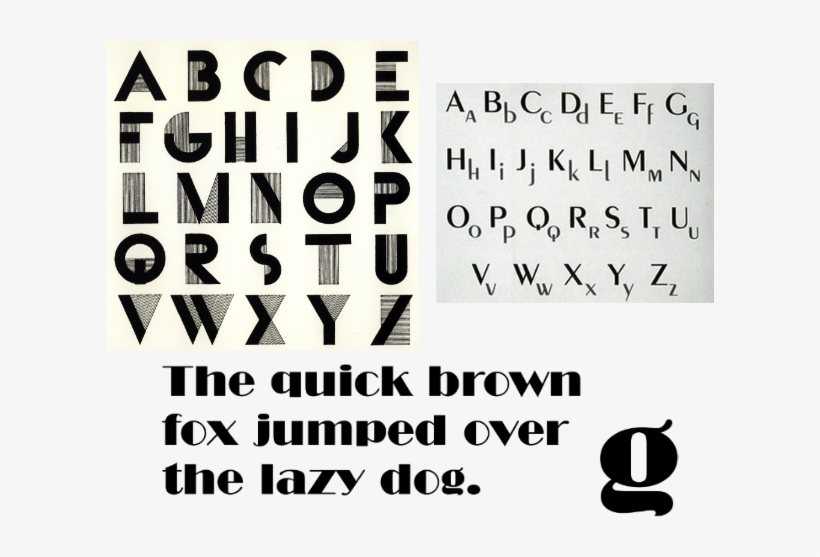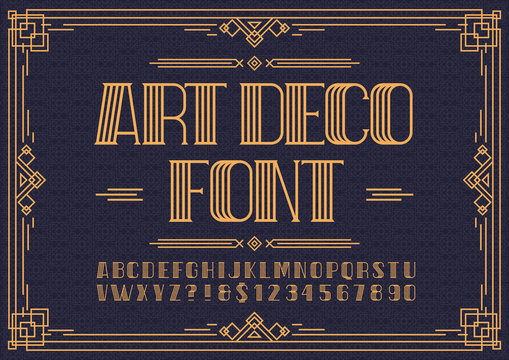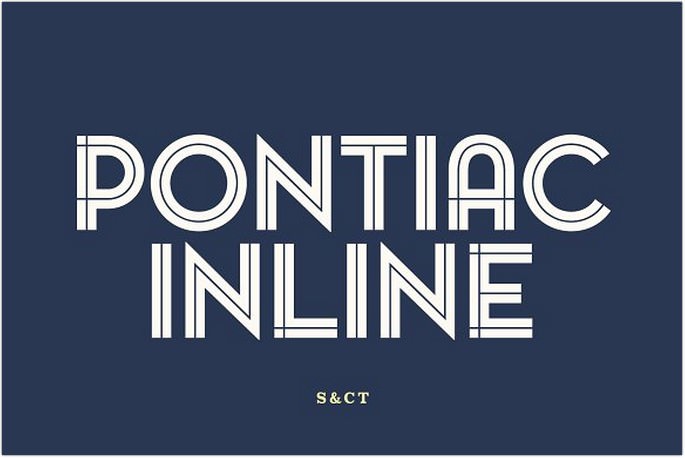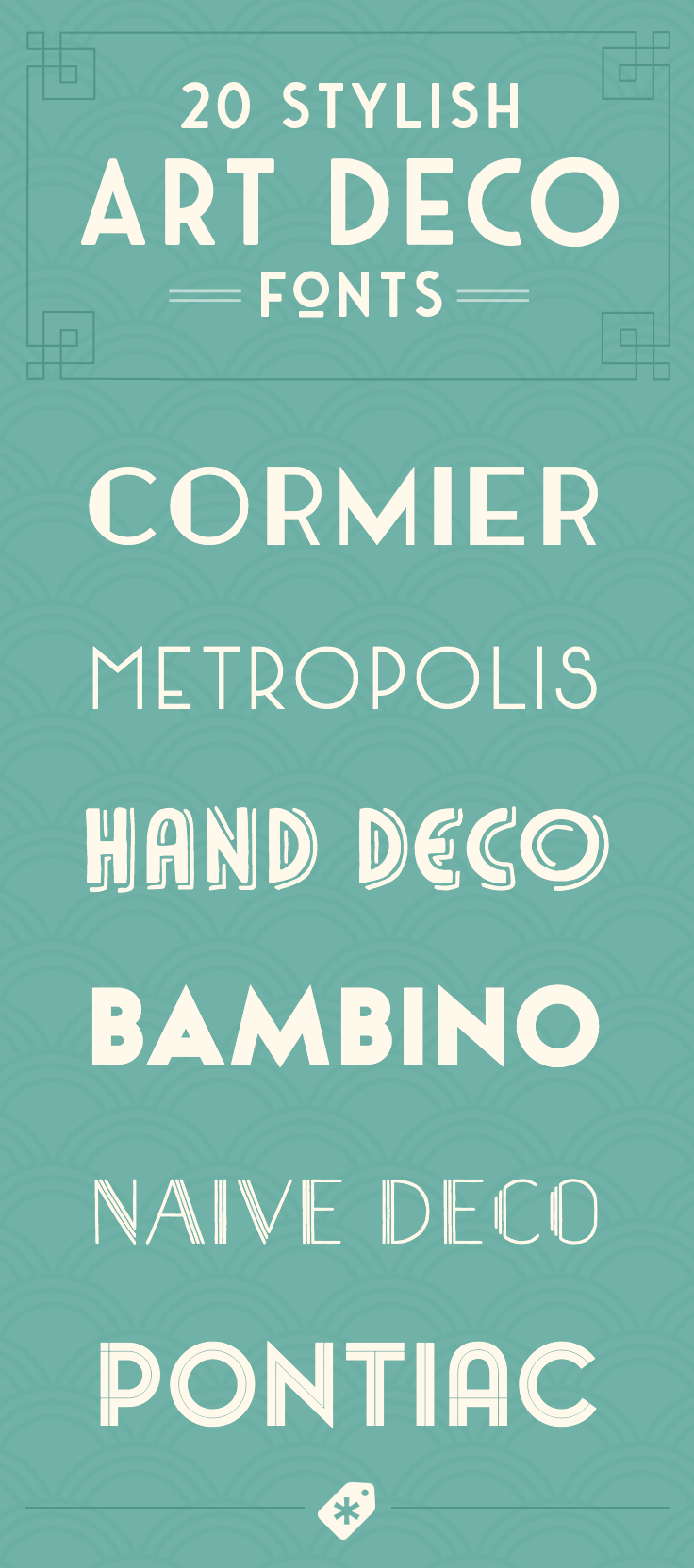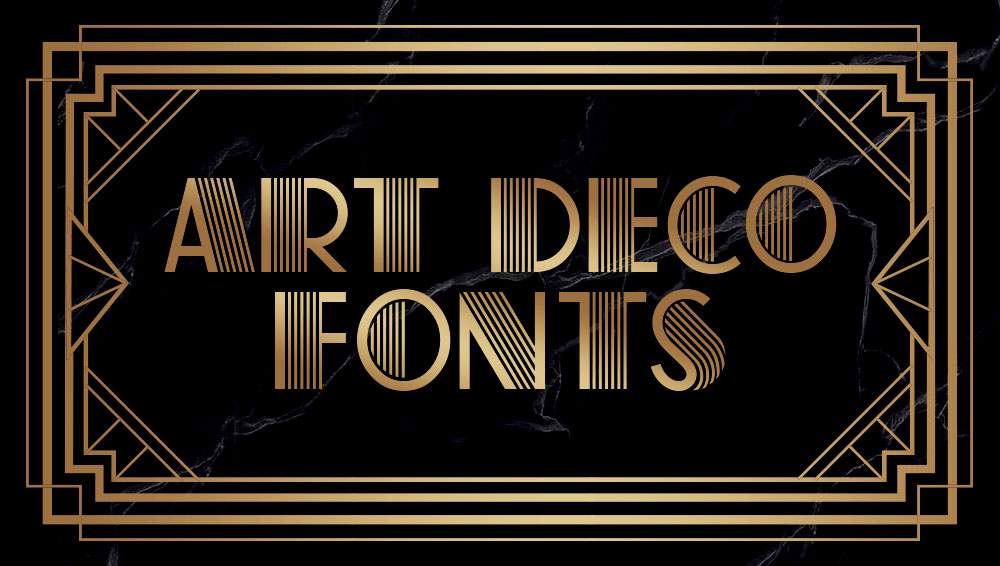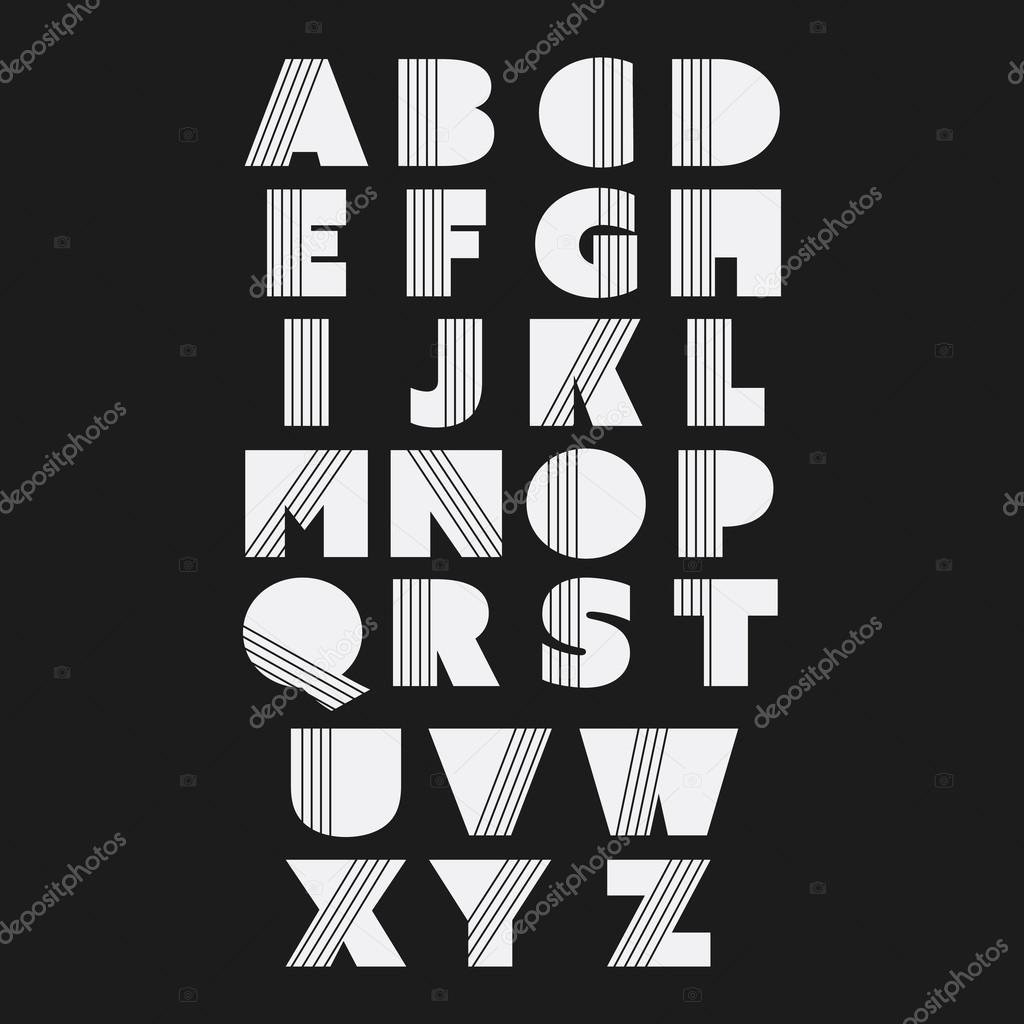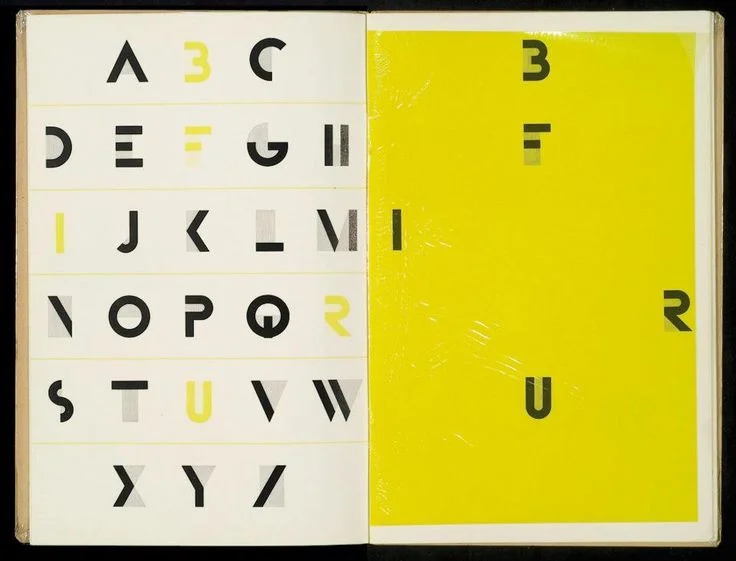
Download TTF offsite Z Y M m Bondi Alejo Bergmann 1 Styles. Decohead has a neat appearance that feels modern but at the same time its decorative accents it sets itself apart maintaining a subtle yet exquisite overall look without being too shabby.
Typography art deco font. The Fonts Collection section is the place where you can browse filter. Super Retro M54 by justme54s. The Art Deco fonttypeface is always used in display designs with the retro feel and look as their decorative nature.
Z Y M m Barrio Omnibus Type 1 Styles. This Sans Serif Art Deco display font comes with sharp corners. We have 255 free Art-deco Fonts to offer for direct downloading 1001 Fonts is your favorite site for free fonts since 2001.
Z Y M m 20db Jovanny Lemonad 1 Styles. Download Donate to author. This versatile typeface will be great for large and also small sizes.
Font Meme is a fonts typography resource. Bjorn includes uppercase multilingual letters numbers and punctuation. It has 650 characters with 190 swashes that have great clarity for smooth reading.
Solente is an elegant slab serif font inspired by the Early 1900s Jugendstil Art-Deco and Art Nouveau fonts. Fonts tagged art deco. The Fonts in Use section features posts about fonts used in logos films TV shows video games books and more.
This elegant font comes in regular light and halftone styles. Giaza Pro Typeface Art Deco Font with sleek curves and refined edges is used mostly in typography graphic design and fashion. With its unique and delicate touch this font can add a sophisticated twist to any design.
Includes all types of art deco flavoured fonts like sans-serifs and display. 19115 downloads 184 yesterday Free for personal use - 2 font files. It perfectly represents vintage esthetics in a modern way.
The Text Generator section features simple tools that let you create graphics with fonts of different styles as well as various text effects. Presenting DECOHEAD an elegant and warm Art Deco inspired typeface. Art Deco typestyles range from uncomplicated low-waisted monostroke designs such as ITC Anna Bernhard Fashion Busorama and Coquette to more intricate decorative typestyles such as Beverly Hills Chic Broadway Engraved Gallia ITC Mona Lisa Recut and Philco Deco The most ornate Deco designs feature double triple or multi-lineal stroke details.
Magic Sparkle by HansCo. Collection of fonts for art deco font. The influence of this modern and elegant style also can be seen in typography.
Bjorn Typeface is another one if Art Deco fonts presented by Tugcu Design Co.